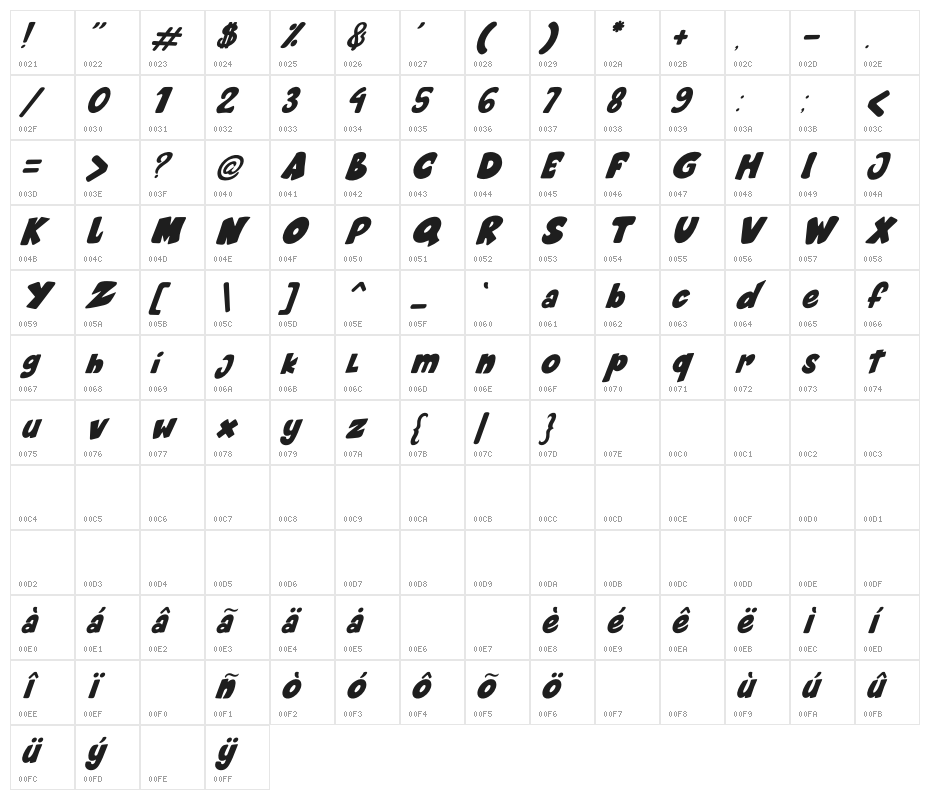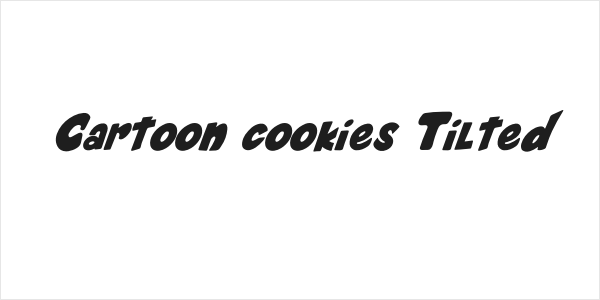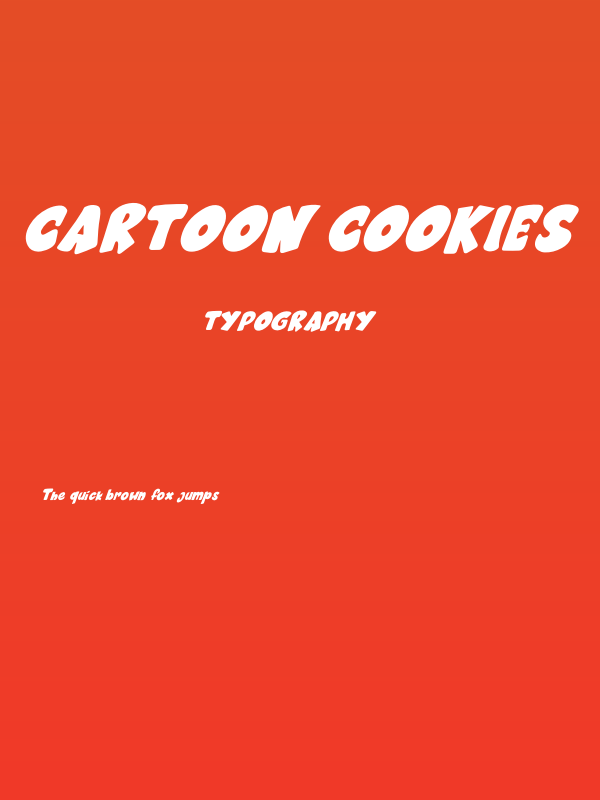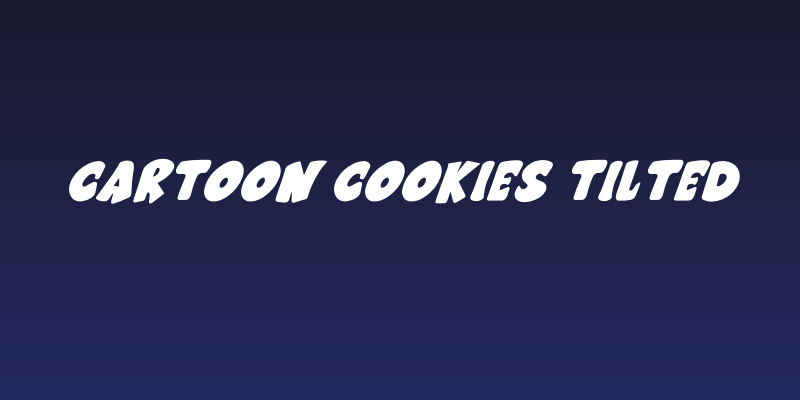
Cartoon cookies Tilted Font
Cartoon cookies Tilted Description
This playful and bold font features thick, rounded characters with a slightly tilted orientation, giving it a dynamic and energetic appearance. The letters are designed with a cartoonish flair, making them ideal for projects that require a fun and informal touch. The strokes are consistent in thickness, contributing to a cohesive and balanced look across all characters. The font includes a full set of uppercase and lowercase letters, numbers, and a variety of special characters, ensuring versatility in use. Its whimsical style is perfect for capturing attention and conveying a sense of joy and creativity.
| Overall Style | Playful, Cartoonish |
| Proposed Projects | Ideal for children's books, comic strips, playful branding, and party invitations. |